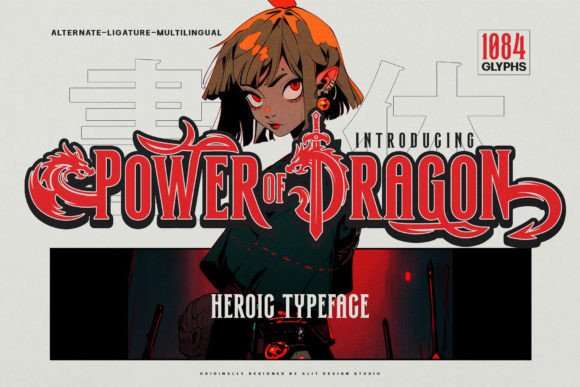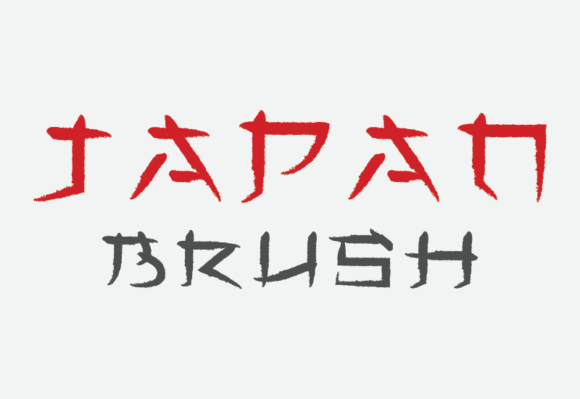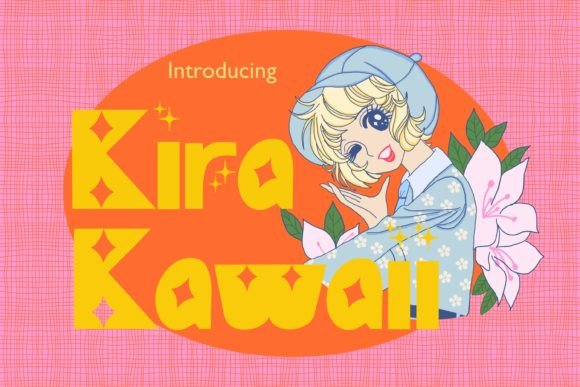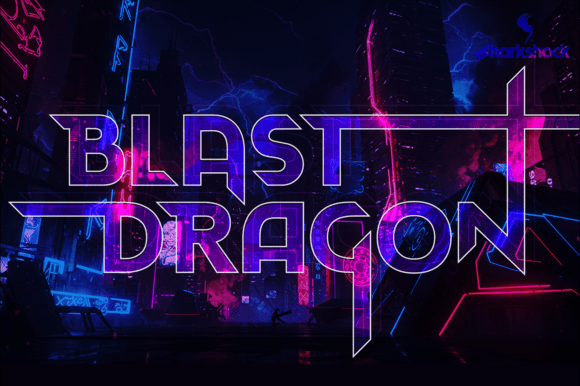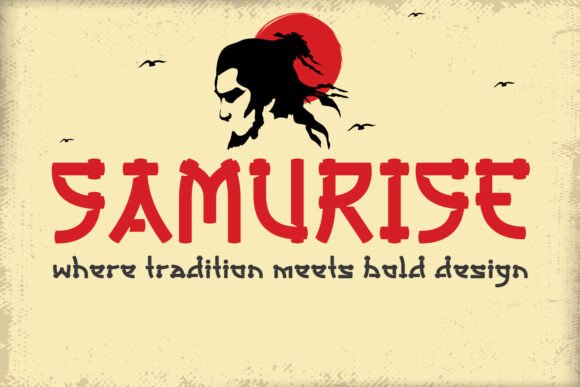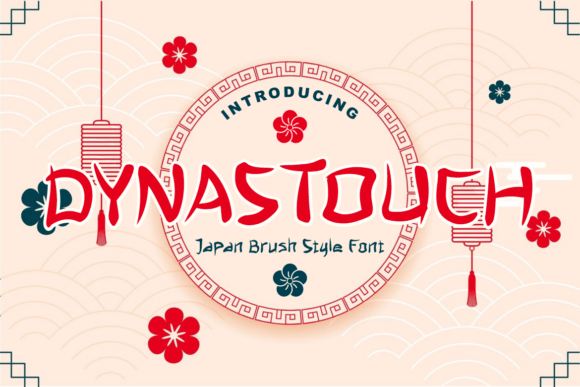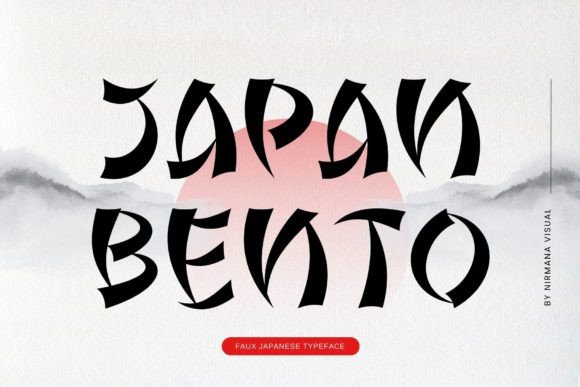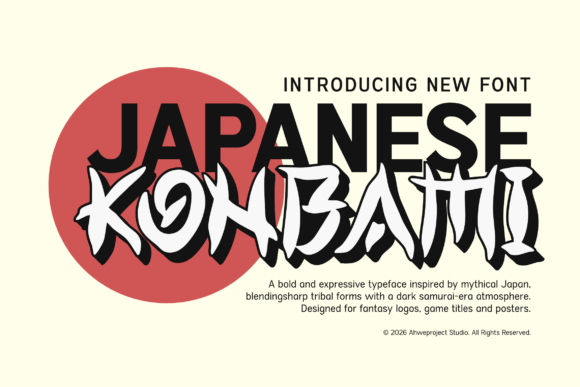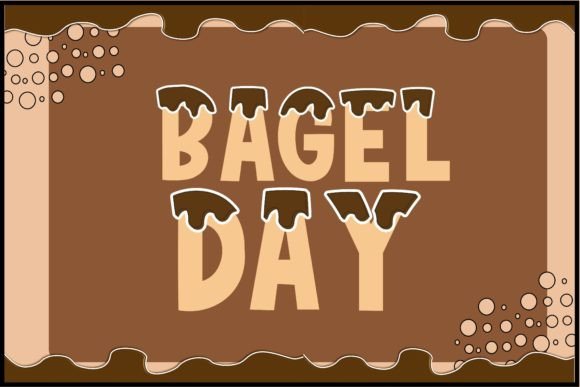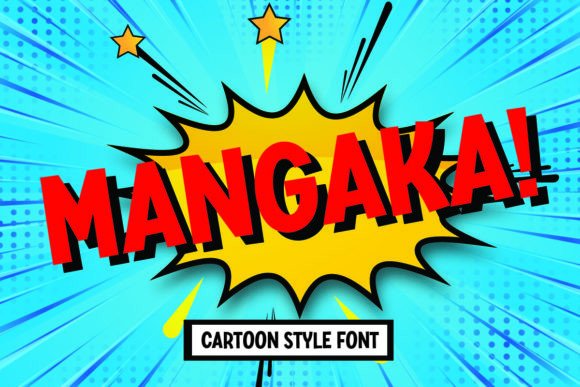
This collection of 75 exceptional digital fonts offers a vibrant fusion of classic anime aesthetics and cutting-edge design versatility. Perfectly suited for everything from branding to playful typography projects, these fonts can bring a fresh perspective to your creative toolbox. Whether you're designing logos, crafting posters, or simply seeking new inspiration, these stylish fonts promise to enhance your work with charm and vitality. Don't miss out on this opportunity—the availability of these top-tier fonts for free download is limited. Take a moment to explore the collection; you never know which font might become your new favorite. Each one is crafted with ease of use in mind, designed to make a memorable impact in your visual projects. Saving them now ensures you have them on hand for when creativity strikes.
✨ DISPLAY
1. Power of Dragon Heroic Serif Display Typeface
Bold, dynamic serif display typeface inspired by super hero anime, blending strength, elegance, and fantasy. Includes 1084 characters with PUA Unicode and multilingual support, plus dragon wings and sword-themed illustrations.
2. Japan Brush Calligraphy Display Font
Japan Brush is a bold display font shaped by traditional Japanese calligraphy, blending fluid brush strokes with crisp strength. Its character set features detailed motifs such as cherry blossoms and waves for a distinctive cultural finish.
3. Kira Kawaii Sparkle Cute Display Font
Kira Kawaii is a quirky, adorable display font accented with sparkling details inspired by vintage manga eye highlights. It includes a playful character set designed to add charm and shine to headlines and decorative text.
4. Blast Dragon Cyberpunk Display Font
Blast Dragon is an edgy all-caps display font with bold condensed geometry, blade-like extensions, and crisp 45-degree terminals. It includes Basic and Extended Latin, punctuation, kerning, stylistic sets, and alternates.
5. Samurise Japanese Stencil Display Font
Samurise is a bold Japanese-inspired stencil typeface with sharp, disciplined strokes and a clean, modern edge. It blends samurai calligraphy energy with structured letterforms for striking titles, logos, and branding.
6. Dynastouch Japanese Brush Display Font
Dynastouch is a bold, quirky brush typeface blending traditional Japanese calligraphy with a modern urban edge. Freestyle hand-drawn strokes deliver expressive characters suited to logos, packaging, posters, titles, and print design.
7. Japan Bento Display Font
Japan Bento is a balanced, modern display font with bold, eye-catching character and clean typographic harmony. It includes a cohesive set of letterforms suited to logos, branding, social posts, and product designs.
8. Konbami Japanese-Style Bold Display Font
Konbami is a bold Japanese-style display font inspired by samurai lore and modern tribal aesthetics. Sharp, heavy letterforms deliver high-impact readability for headlines, logos, and title design.
9. Bagel Day Color Font
Bagel Day is a cheerful color font with playful bagel-shaped letterforms. It includes a full set of vibrant characters that add a cute, lively accent to titles and subtitles.
10. Mangaka Cartoon Comic Font
Mangaka is a bold, playful cartoon font with an energetic manga-inspired feel. Its lively letterforms create high-impact headlines and expressive comic-style typography for posters and graphic projects.
11. Simple Anime Bold Display Font
Simple Anime is a bold display font with thick, clean letterforms and a stylish anime-inspired feel. The package includes a complete character set designed for strong, high-impact typography.
12. Qasengi Japanese & Southeast Asian Display Font
Qasengi is a culturally inspired typeface blending Japanese spirit with Southeast Asian nuance. It delivers an authentic look through distinctive letterforms that balance traditional elegance and modern freshness.
13. Amoikeh Japanese Display Font
Amoikeh is an elegant Japanese-style display typeface with bold, cinematic character. The font set delivers distinctive letterforms suited to logos, branding, titles, labels, and creative media.
14. RAIKO Neo Tokyo Lightning Display Font
RAIKO is a bold Japanese-inspired display font built on sharp angles and modern geometric structure for an electrifying, futuristic impact. It includes distinctive uppercase and lowercase letters, numerals, and punctuation in a clean yet aggressive style.
15. Zoro Street Japanese Calligraphy Urban Display Font
Zoro Street blends classic Japanese brush calligraphy with the punchy rhythm of modern street art. The typeface delivers expressive strokes and bold character forms for standout, culture-rich lettering.
16. Sakura Japanese-Themed Display Font
Sakura is an attractive display font with a bold Japanese-inspired look that makes text instantly recognizable. It includes stylized letterforms suited to comics, anime aesthetics, game titles, posters, and striking social posts.
17. Shibuya Dancefloor Sci‑Fi Display Font Family
Shibuya Dancefloor is a Japan-inspired display font family with bold, angular forms that evoke anime energy and sleek sci‑fi flair. It includes a cohesive set of styles designed for striking headlines and graphic typographic moments.